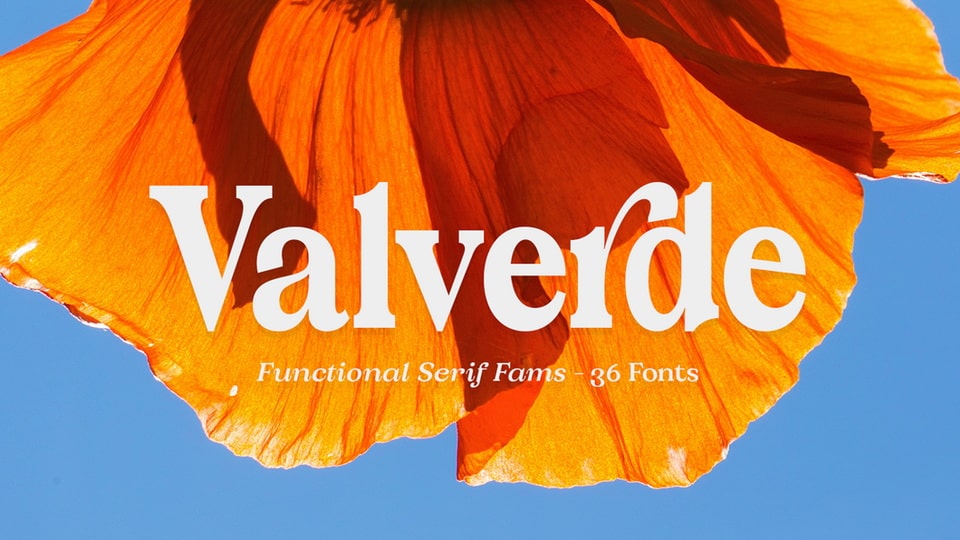
Download Valverde font, a serif typeface inspired by the type of vintage style that has recently become a trend, this letter character has an elegant, sharp impression. Valverde font looks aesthetic so that it fits in a classy modern look.
Designer: Jehoo Creative